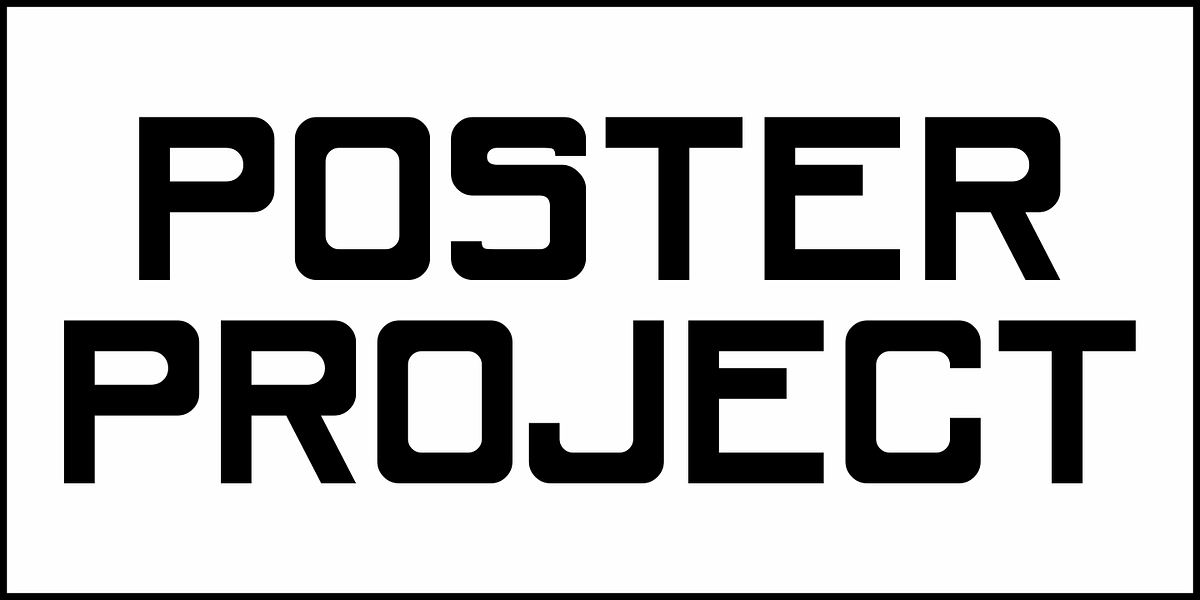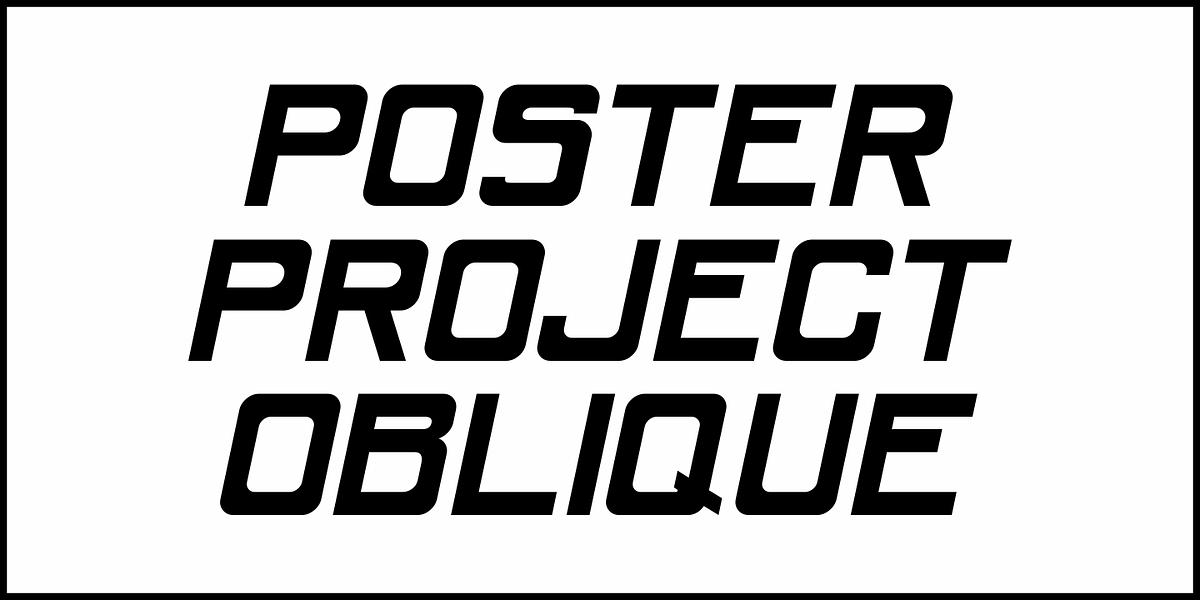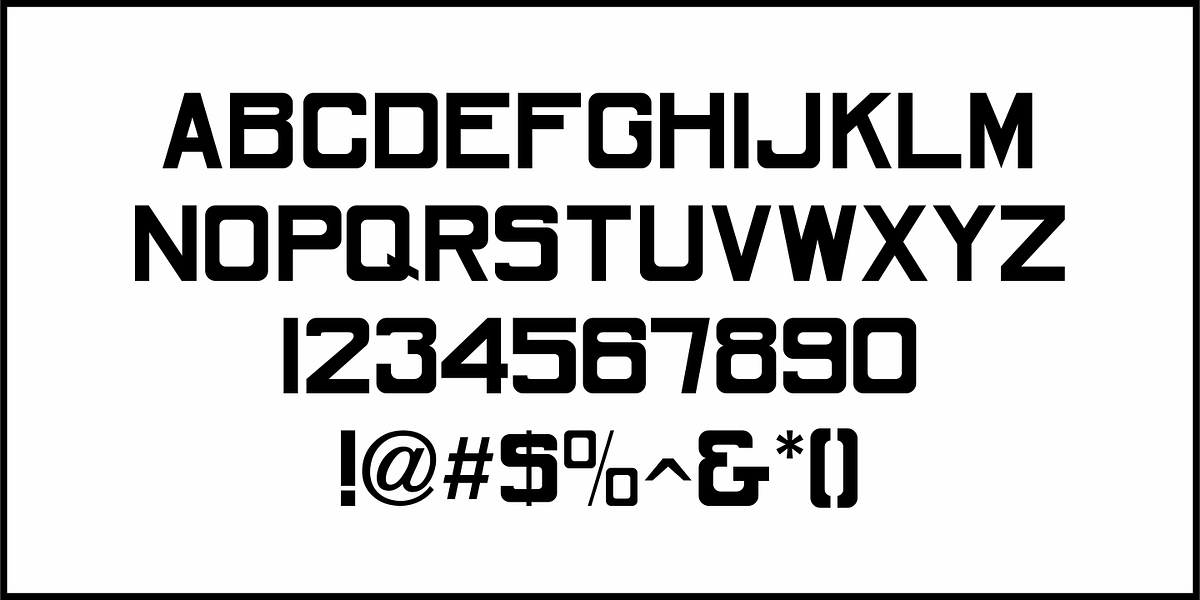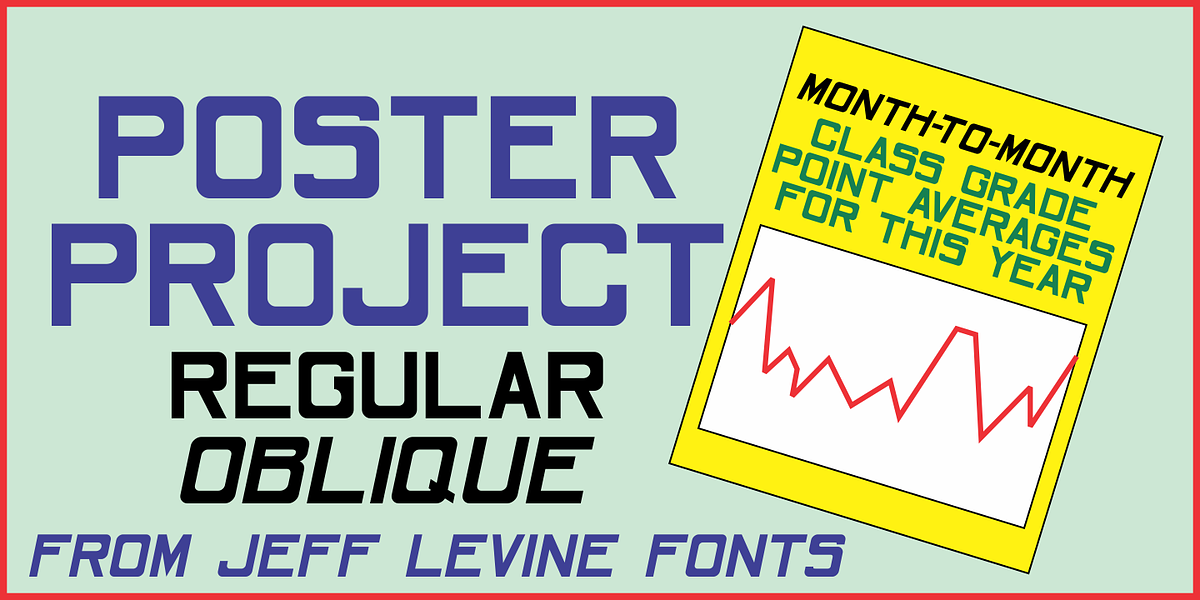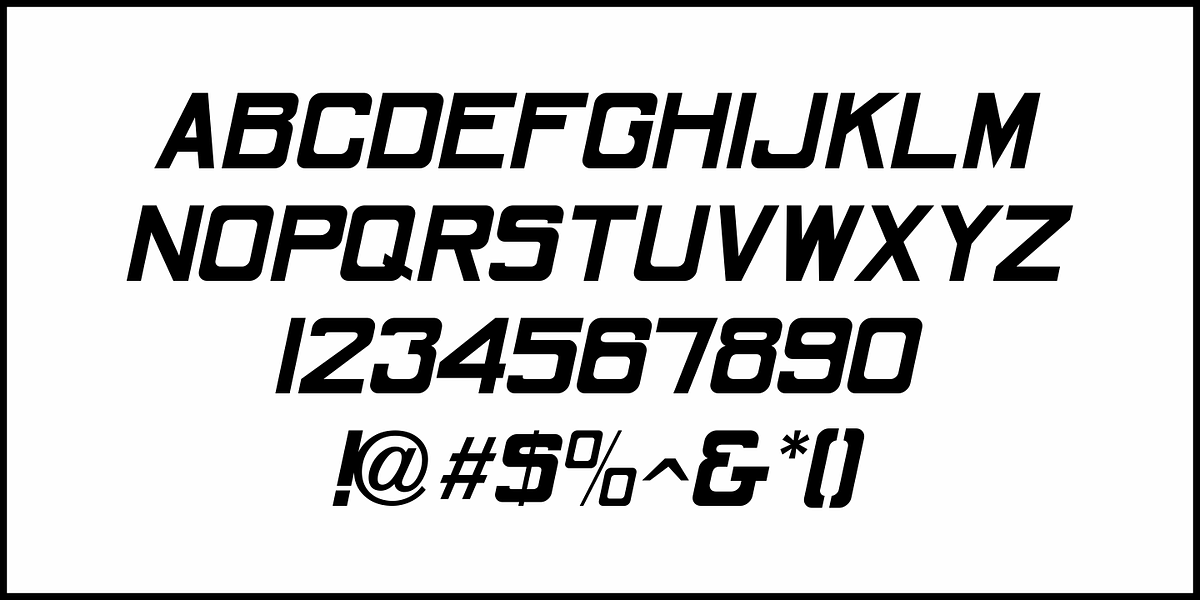
Poster Project JNL
An online image of a grid page [circa 1930s] showing teachers how they and their students could create cut-out letters and numbers inspired Poster Project JNL. The typeface is available in both regular and oblique versions.
A crude, yet charming simplicity to the lettering can help replicate old time school bulletin boards and posters, or simply provide a less formal typographic approach when that is needed for a project.